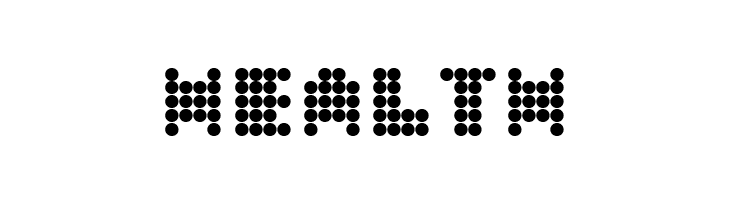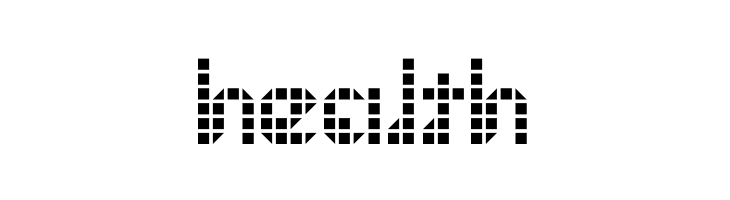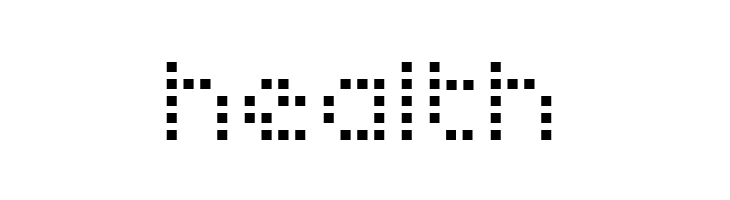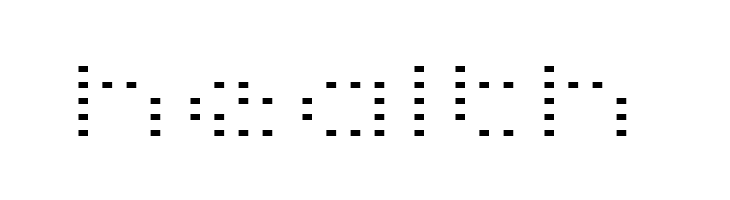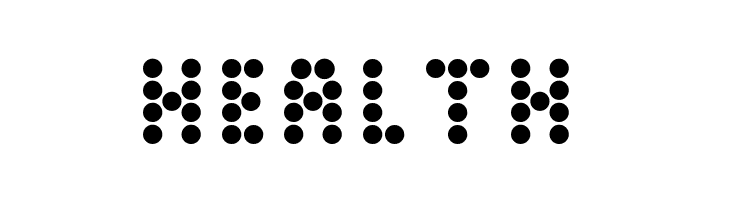
A dot matrix style font with a modern, digital aesthetic.
A pixelated, retro-style font reminiscent of early digital displays.
A bold, geometric font with a futuristic digital aesthetic.
A modern, dotted font with a digital, pixelated style.
A modern dot matrix font with a pixelated, digital display style.
A dot matrix style font with a modern, digital aesthetic.